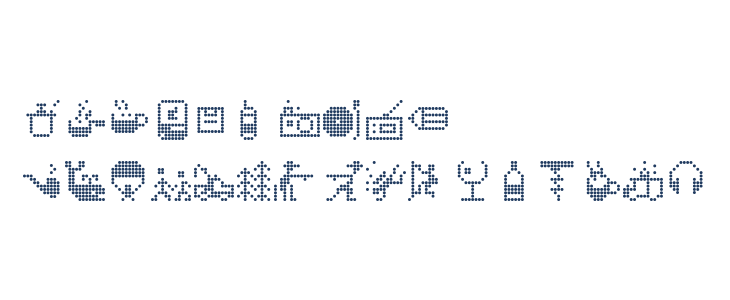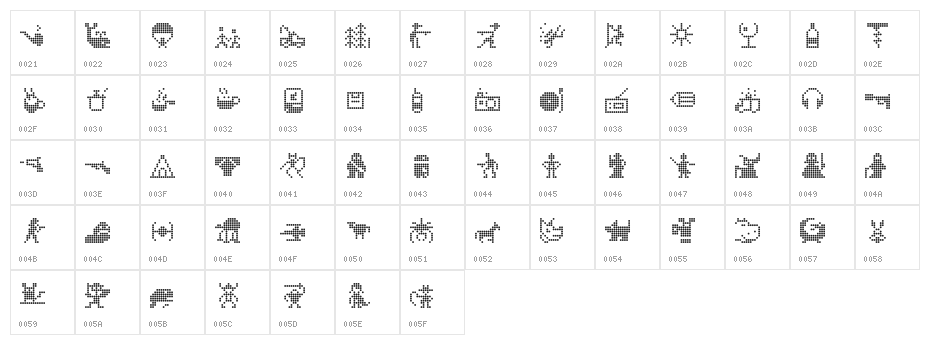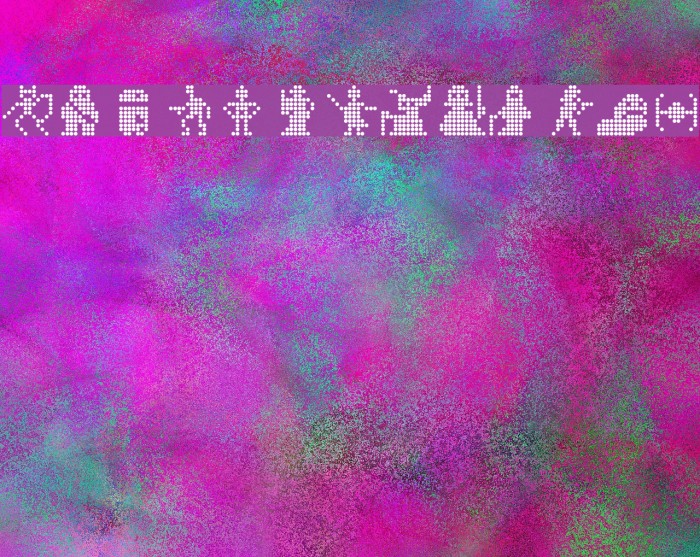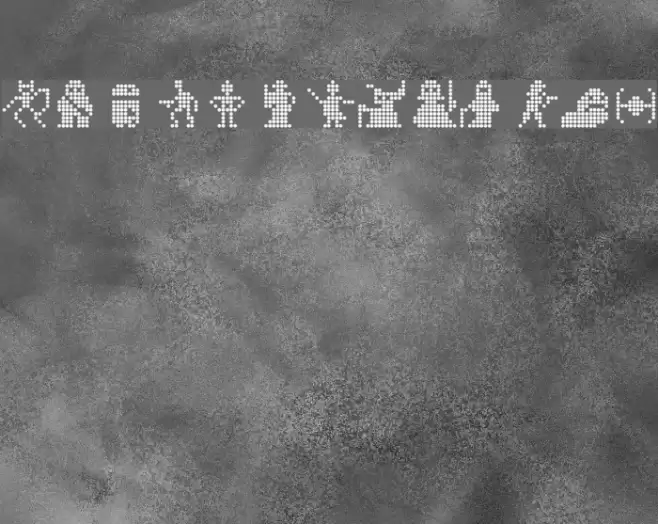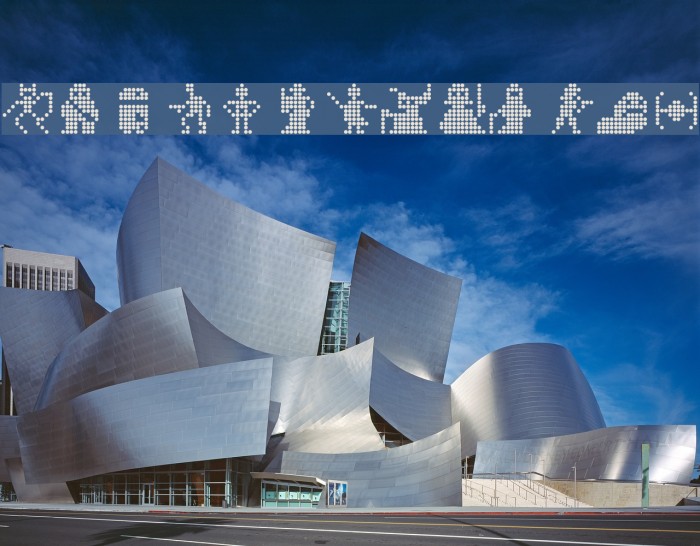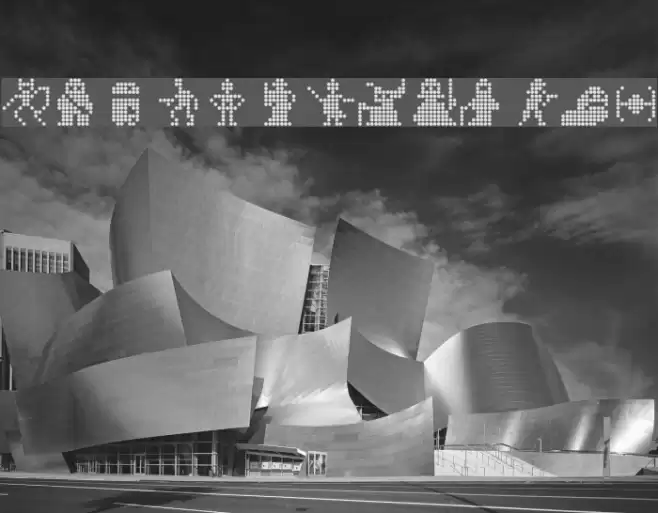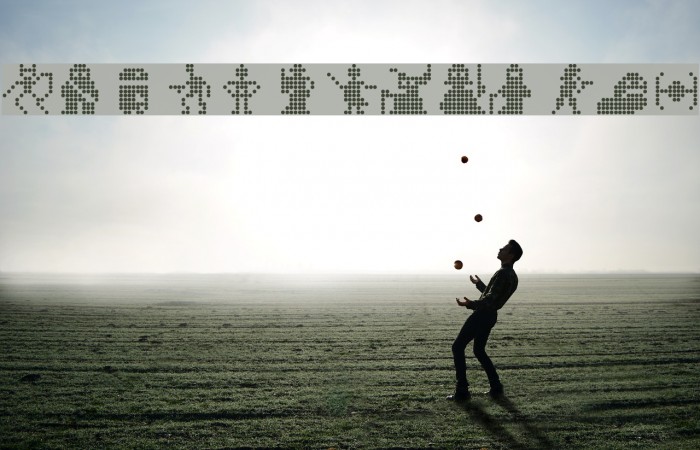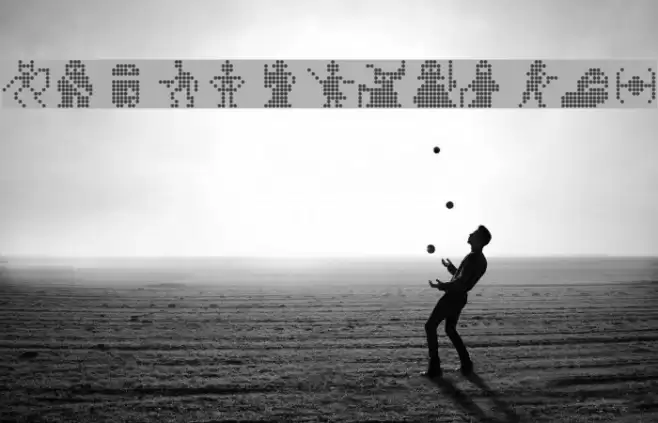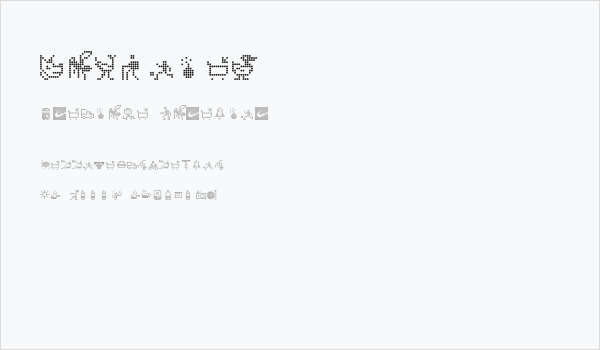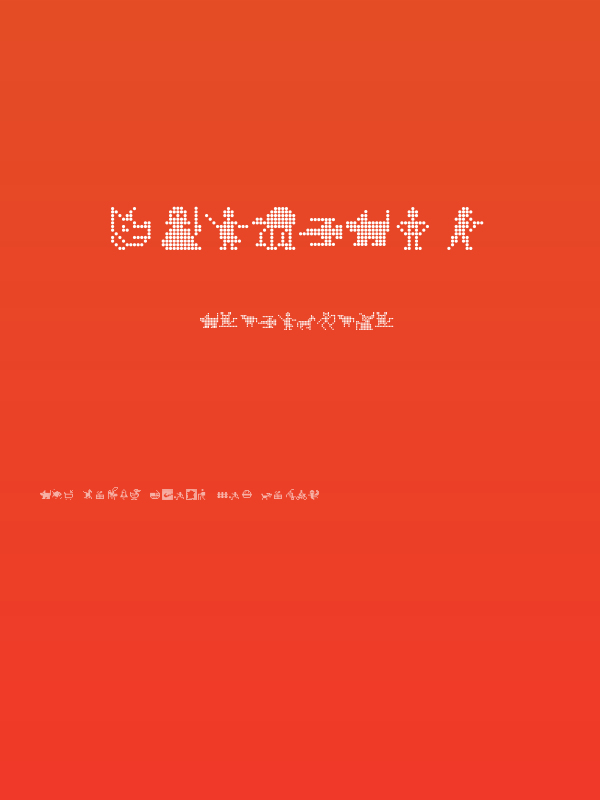
Signotek Font
Signotek Description
This font is a creative and playful design composed entirely of small dots forming each character. The characters are abstract and artistic, resembling a series of pixelated images rather than traditional letters and numbers. Each character is unique, with varying densities of dots creating a textured and dynamic appearance. The font's style is reminiscent of digital art or pixel art, offering a modern and unconventional look. It is visually striking and captures attention with its intricate dot patterns, making it suitable for artistic and decorative purposes.
| Use Case | Logos, Posters, Artistic Designs |
| Proposed Projects | Ideal for digital art projects, creative posters, modern graphic designs, and unique branding materials. |